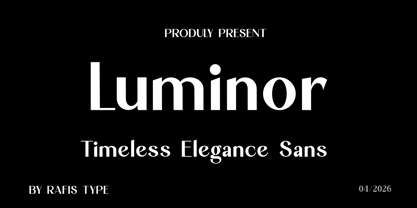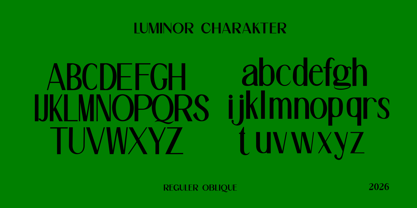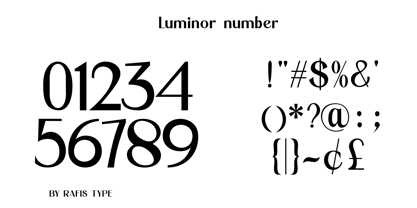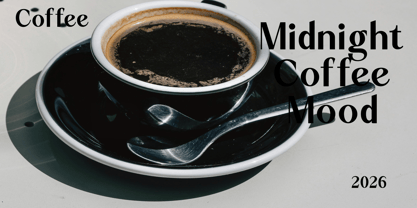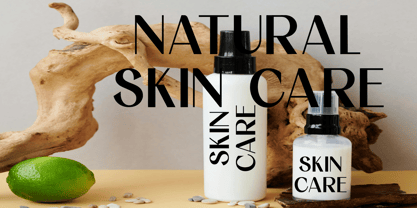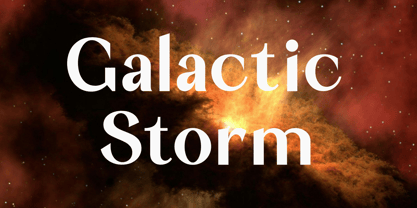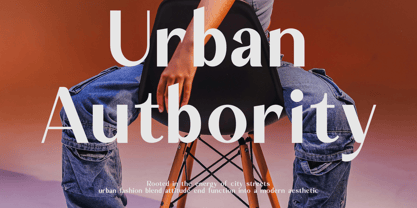
Luminor
von Rafis Type
Die Schriftfamilie Luminor wurde von Agus Priono entworfen und von Rafis Type veröffentlicht. Luminor enthält 2 Stile und Familienpaketoptionen. Mehr über diese Familie
Luminor is a stylish display typeface designed with a modern and elegant character. Its clean shapes and strong presence make it perfect for branding, logos, posters, editorials, and creative design projects. is a modern serif typeface with a touch of classic elegance. Its smooth curves and balanced shapes create a refined and timeless look, perfect for branding, logos, editorials, and luxury design projects.
Designer: Agus Priono
Aktuelle Foundry: Rafis Type